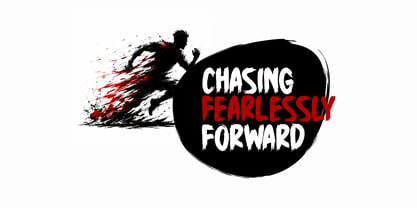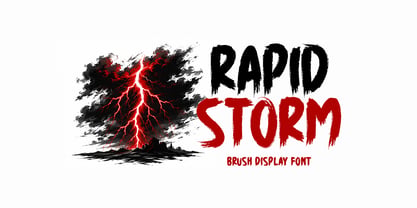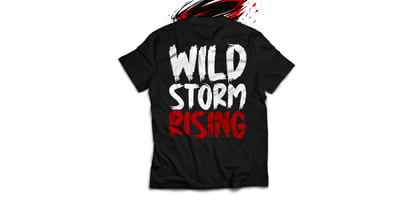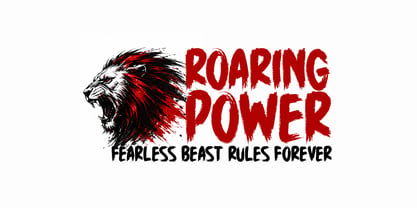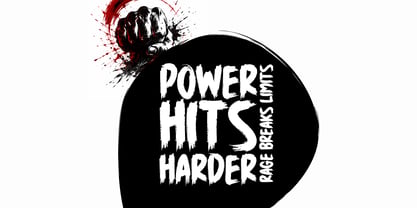
Rapid Storm
Die Schriftfamilie Rapid Storm wurde von Md. Sohail Bhuiyan entworfen und von Seemly Fonts veröffentlicht. Rapid Storm enthält 1 Stile. Mehr über diese Familie
Rapid Storm is an intense brush font designed for powerful, energetic, and dramatic visual expression. It is ideal for creating posters, logos, branding, social media posts, YouTube thumbnails, movie titles, gaming graphics, sports designs, apparel prints, album covers, packaging, and promotional advertisements. The font delivers a raw, hand-painted brush style with bold strokes and aggressive motion, making it perfect for eye-catching and high-impact designs. Rapid Storm helps designers communicate strength, speed, and intensity in any creative project effectively.